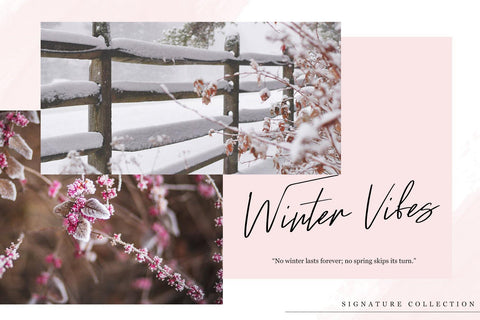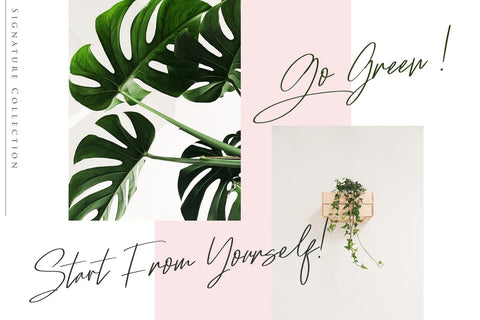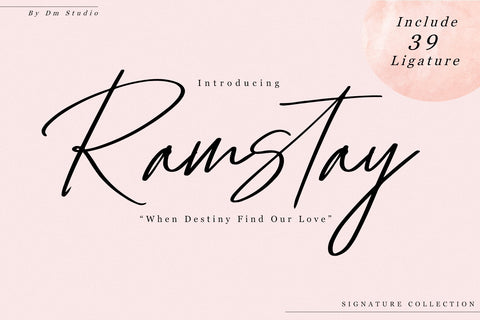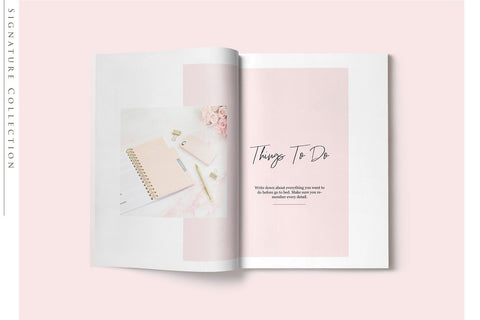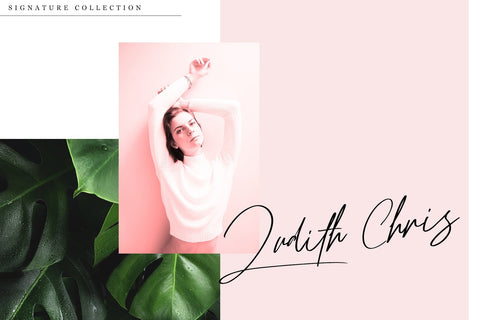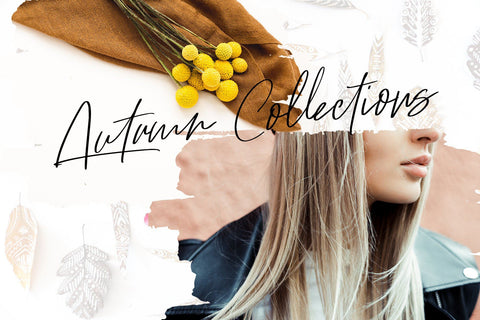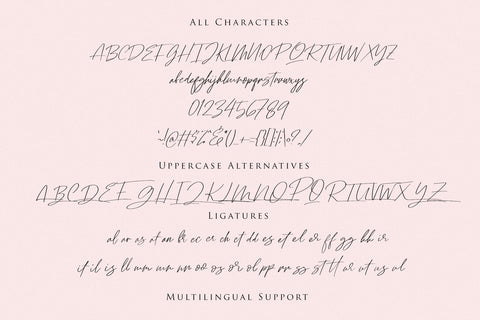
Ramstay - Signature Font
Ramstay , Handwritten Font
Introducing, Ramstay; Our new signature font series. It's a stylish, elegant, casual and modern signature font. Great to pair with another typeface, looks great to use in website template, blog, magazine, advertisements, digital signature, social media posts, and much more!
- Standard Character Set ( Uppercase, lowercase, numerals, symbols )
- Uppercase Alternative Characters